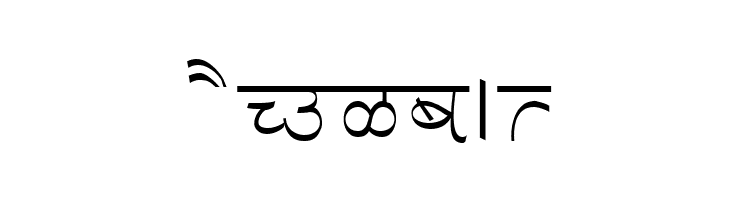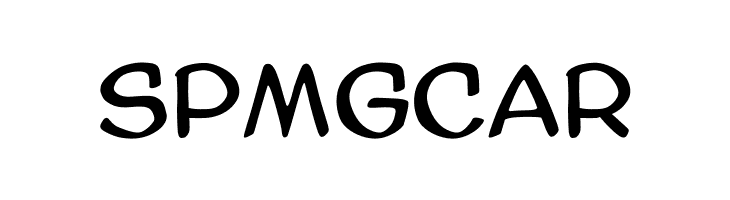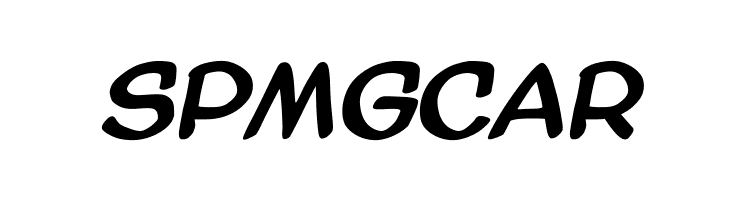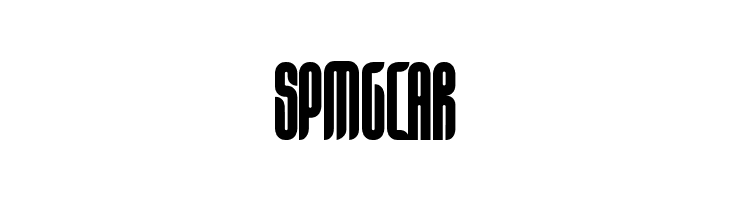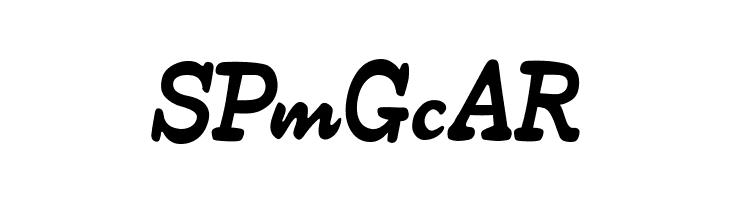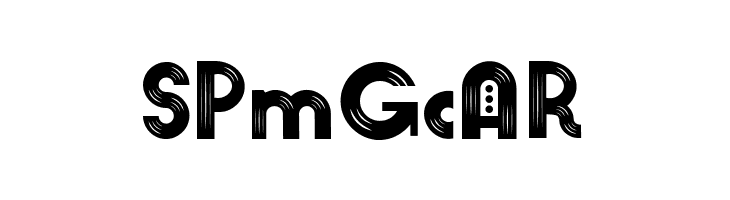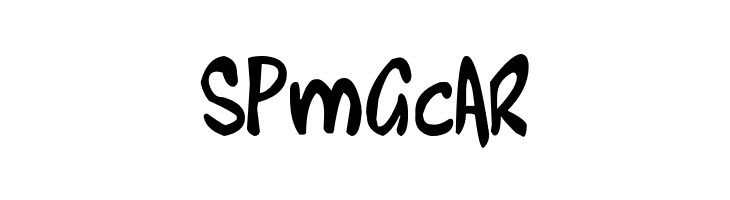
A bold, expressive handwritten font with dynamic strokes.
A distressed, grunge-style font with a rugged, stencil-like appearance.
A bold, distressed font with a rugged, industrial look.
A vintage-inspired, hand-drawn font with artistic flair and irregular strokes.
A bold, high-contrast serif font with dramatic and authoritative style.
A modern, geometric sans-serif font with clean lines and balanced spacing.
A bold, modern sans-serif font with medium contrast and geometric shapes.
A sleek, modern, bold italic font with consistent stroke thickness.
A sleek, modern italic font with clean lines and balanced proportions.
A bold, geometric font with a futuristic and modern design.
A lively cursive font with smooth, flowing strokes and a playful, elegant style.
A playful, casual handwritten font with irregular strokes and a lively feel.
A playful, casual cursive font with a smooth, handwritten style.
A bold, playful font with a retro vibe and rounded, thick characters.
A bold, playful, and condensed font with rounded, irregular shapes.
A bold, condensed, and italic font with a modern and playful style.
A bold, italicized font with a playful, rounded style.
A modern, clean sans-serif font with consistent stroke width and excellent readability.
A bold, rounded font with a modern and clean style.
A bold, modern sans-serif font with clean, geometric lines.
A bold and italic font with a modern, dynamic style.
A sleek, modern italic font with clean lines and consistent stroke width.
A clean, modern sans-serif font with geometric shapes and uniform strokes.
A sleek, modern, light italic sans-serif font with elegant slant and low contrast.
A modern, clean sans-serif font with uniform strokes and excellent readability.
A modern, medium-weight italic sans-serif font with a sleek and professional appearance.